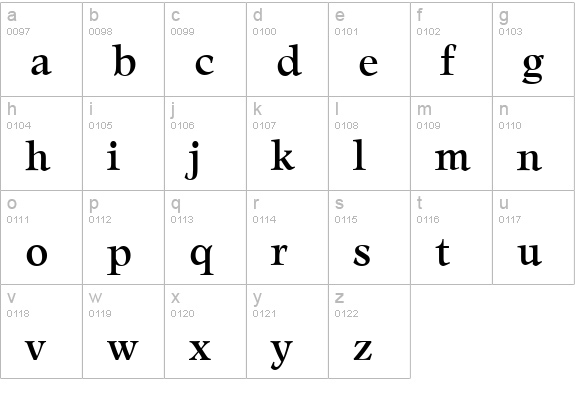
LeamingtonSerial-Regular Font Details
LeamingtonSerial-Regular is the standard, neutral variant in the LeamingtonSerial typeface family \xE2\x80\x94 well suited to general body text, paragraphs, and standard typographic work.
LeamingtonSerial-Regular is a versatile and elegant font that exudes a sense of sophistication and timeless charm. With its clean lines and classic appeal, this typeface is perfect for a wide range of design projects, from invitations to branding to editorial layouts. What sets LeamingtonSerial-Regular apart is not just its aesthetic appeal, but also its accessibility. This font is available for free download at FontsMarket.com, making it a valuable resource for designers and creatives looking to elevate their work without breaking the bank. Whether you're designing a wedding invitation, crafting a logo for a boutique brand, or creating a stylish magazine layout, LeamingtonSerial-Regular is sure to add a touch of class and refinement to your designs. Download this font today and see how it can enhance your next project!